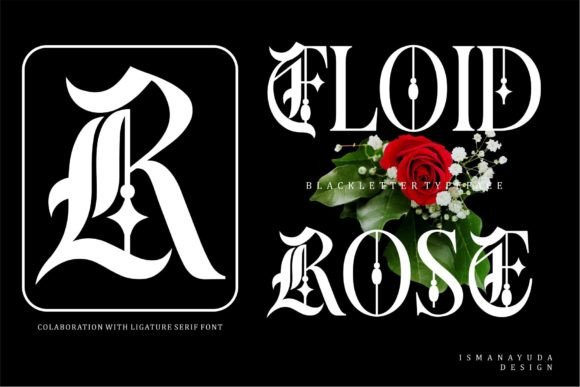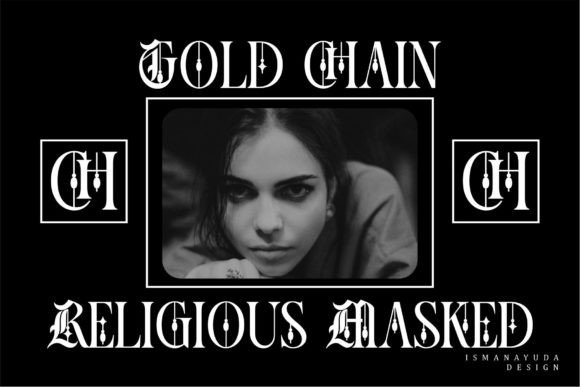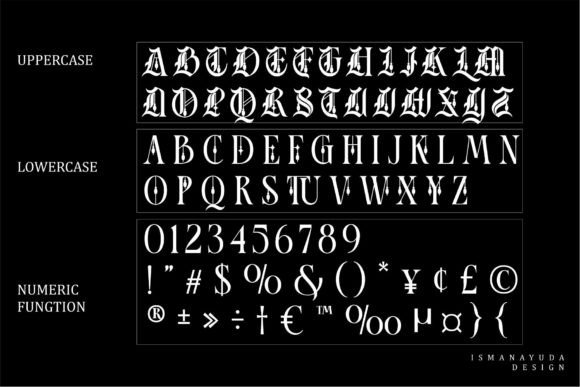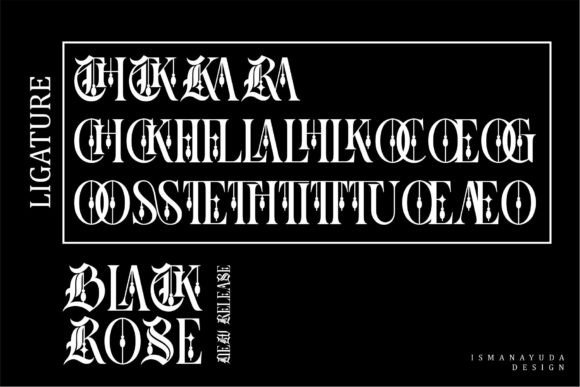
Black Rose is a font with blackletter style letters. It features decorative serifs and connects some letters with ligatures for a unique, old-fashioned look.
Black Rose Font